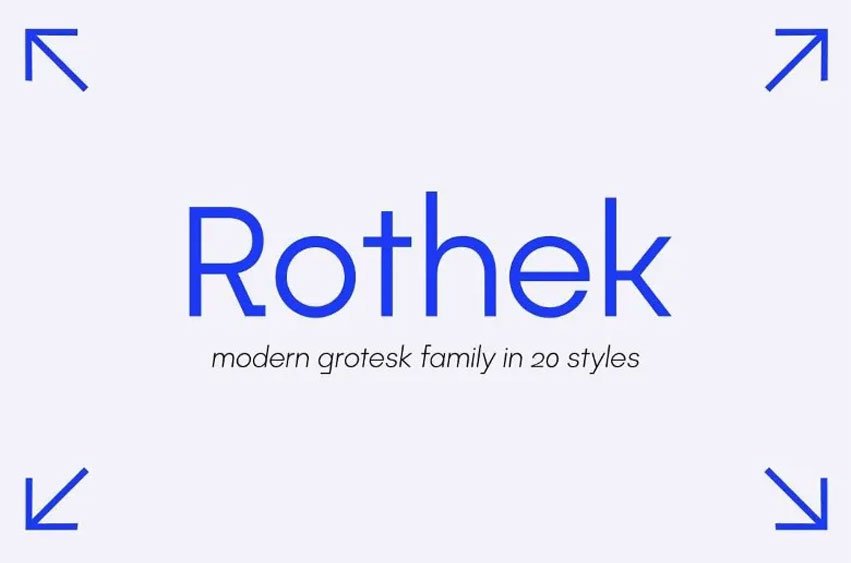
Rothek Font can be characterized as a geometric, elegant and definitely distinct type of sans-serif font family. Coming in a pack of 20 styles; 10 regular and 10 italic, Rothek is an ideal font that can be used in any project; the playful but readable style of Rothek makes it perfect for use on the web and mobile applications.
Rothek is special among the OpenType fonts because of its extraordinary OpenType features. In addition to recognizing the correct syntax for fractions, superscript, and subscript, Rothek also supports other features of case-sensitive punctuation that adjust the size of parentheses, hyphens, etc.